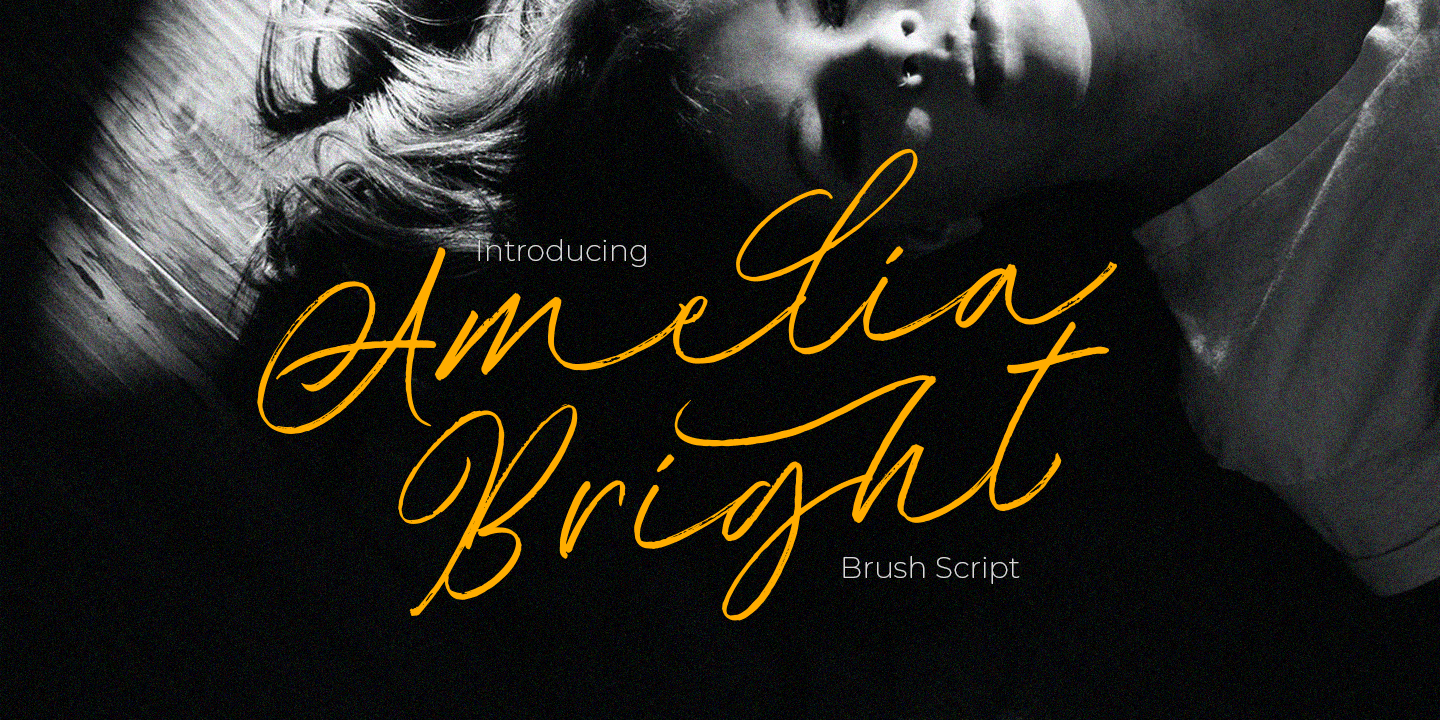
Amelia Bright
Looking for a elegant and refined script font to add sophistication to your design? Look no further! You're in the right place if you're seeking a font that embodies refinement, poise, and a touch of whimsy. Amelia Bright is a delicate and lovely script font designed to bring a breath of fresh air to your projects.
This exquisite font features flowing lines, subtle flair, and an understated charm that's sure to captivate your audience. Perfect for designers seeking a font that conveys elegance and sophistication without being too bold or overpowering. Whether you're creating a wedding invitation, a luxury brochure, or a high-end brand identity, Amelia Bright is the perfect choice.
With its refined strokes and gentle curves, this font is ideal for anyone looking to add a touch of classic beauty to their design. It's also perfect for those who want to create a sense of nostalgia and vintage charm without being too kitschy or over-the-top. Whether you're a professional designer or a creative enthusiast, Amelia Bright is sure to delight and inspire your next project.